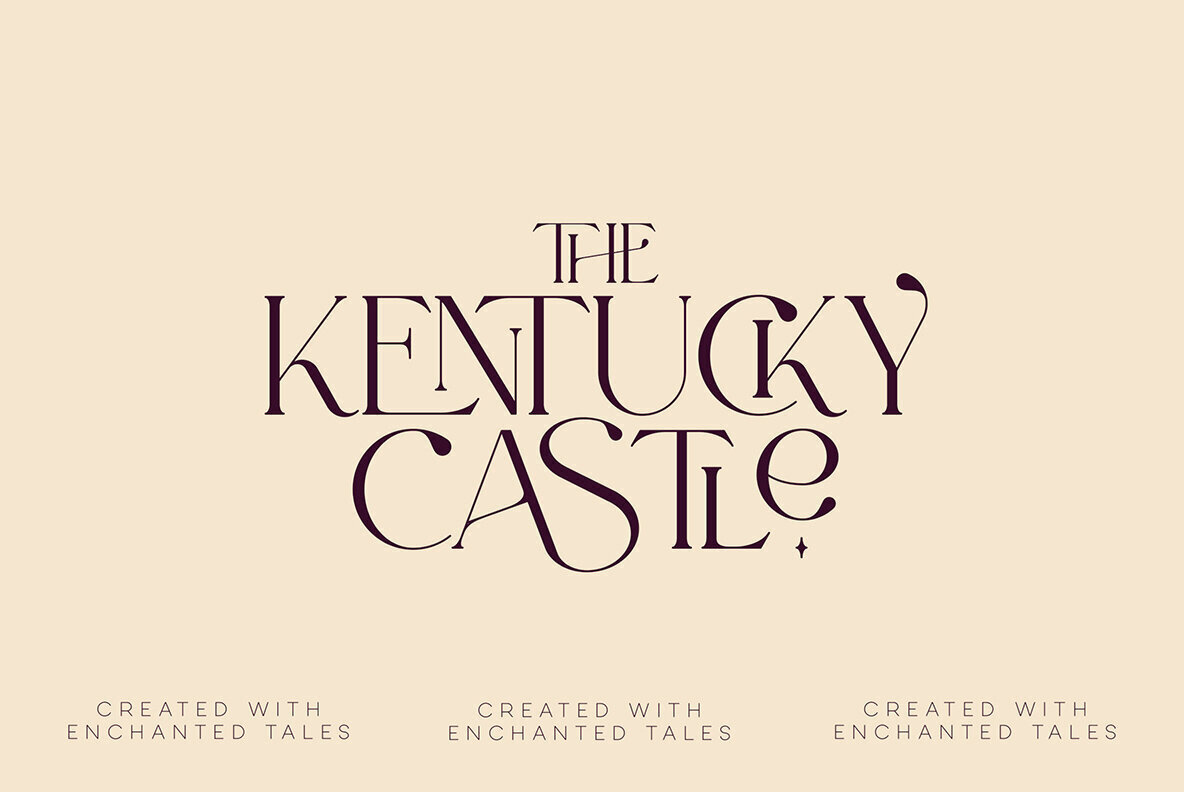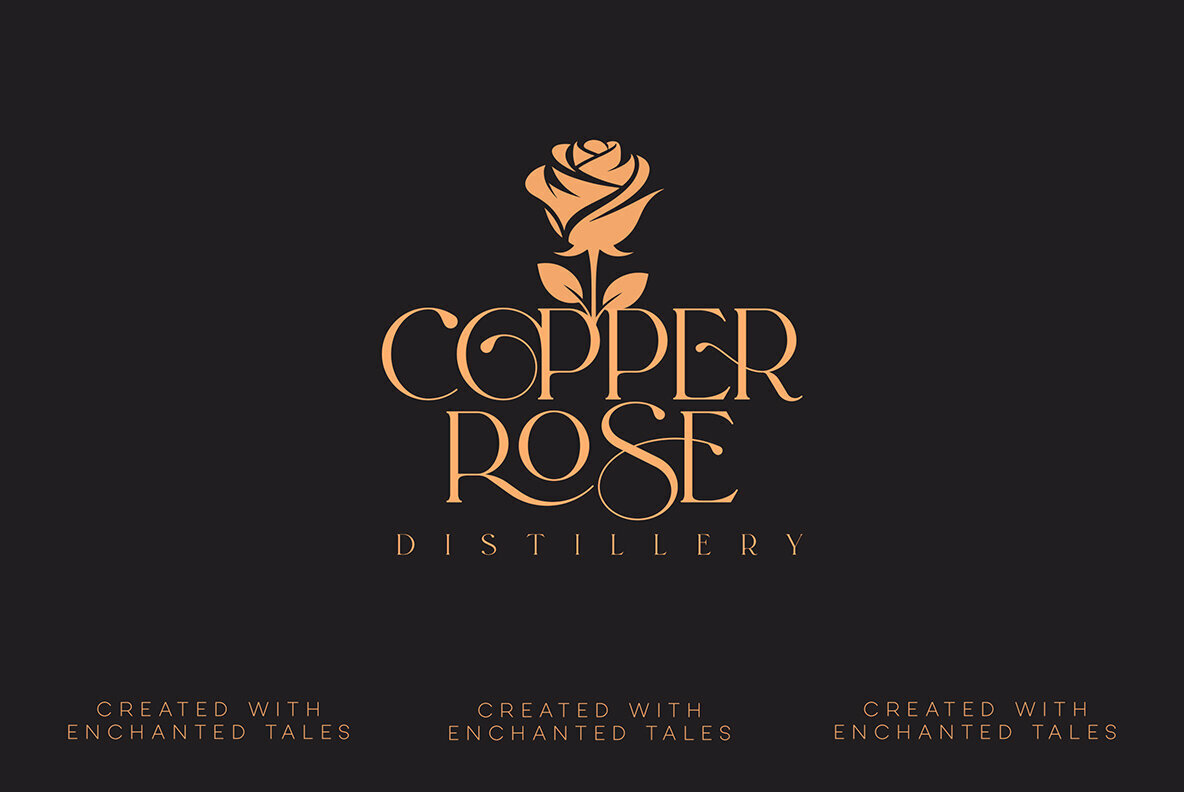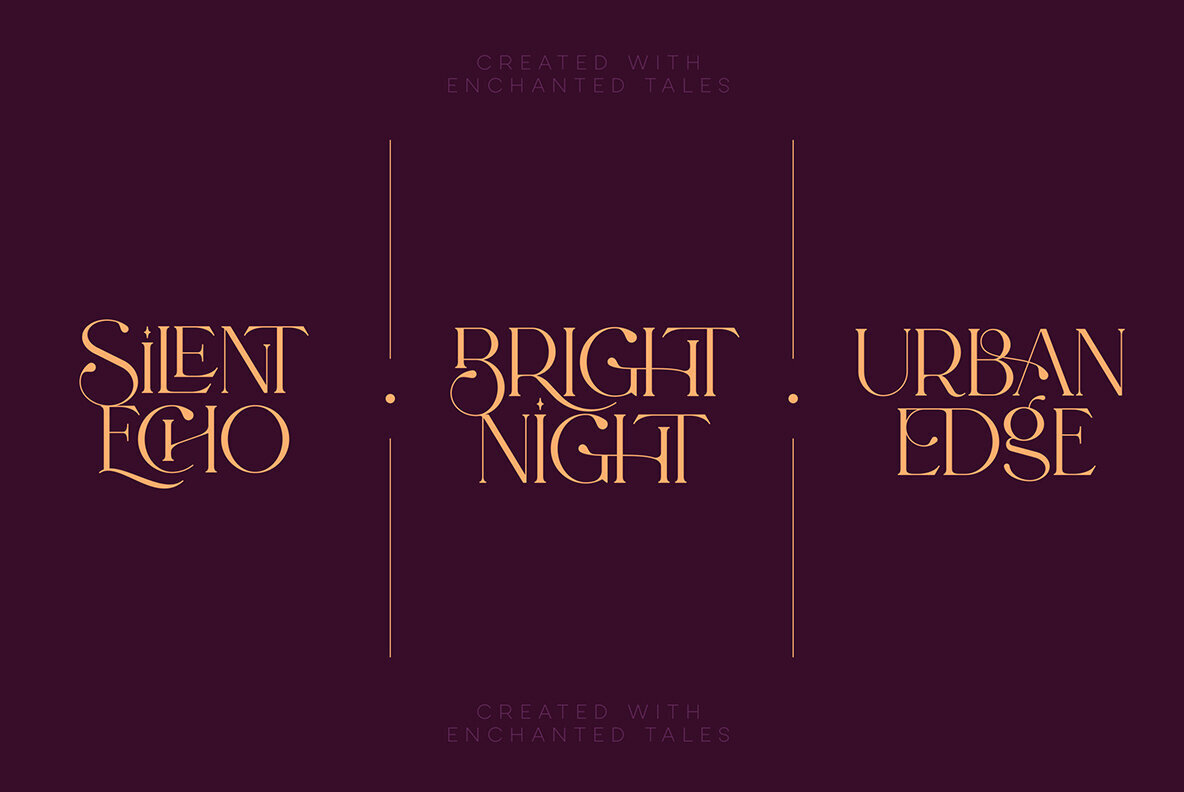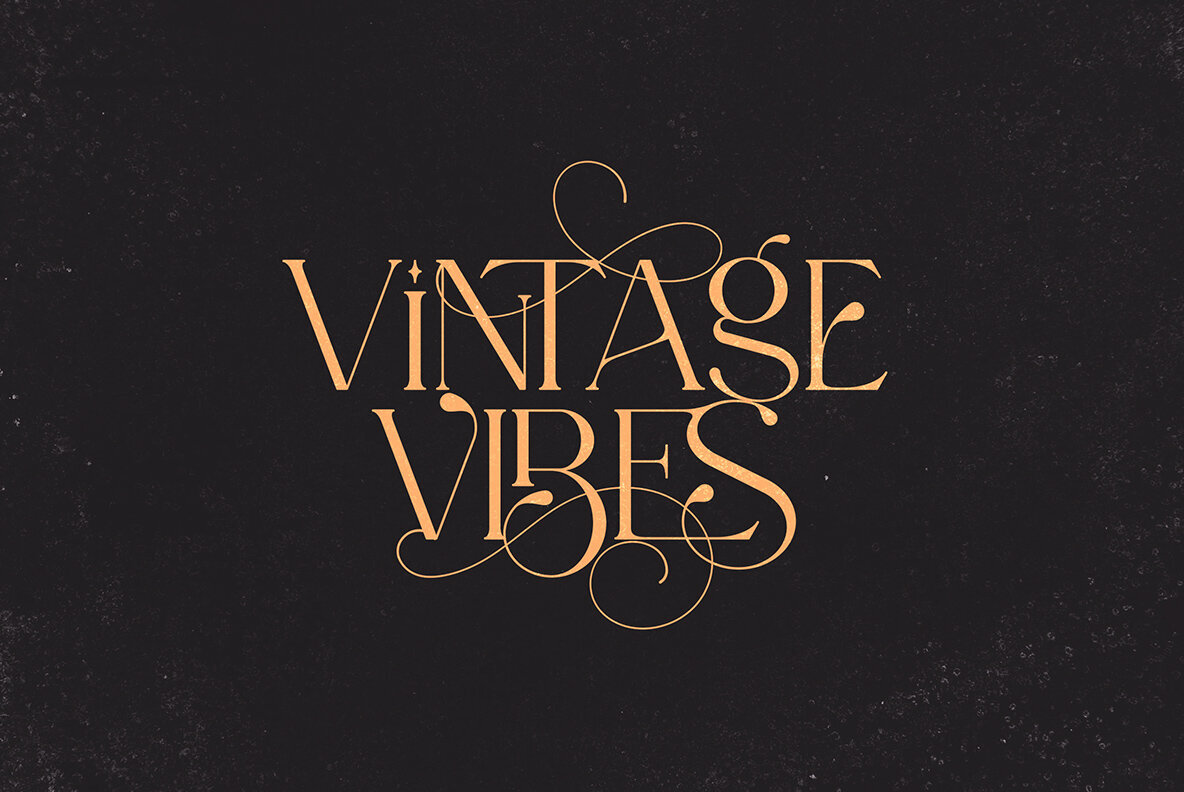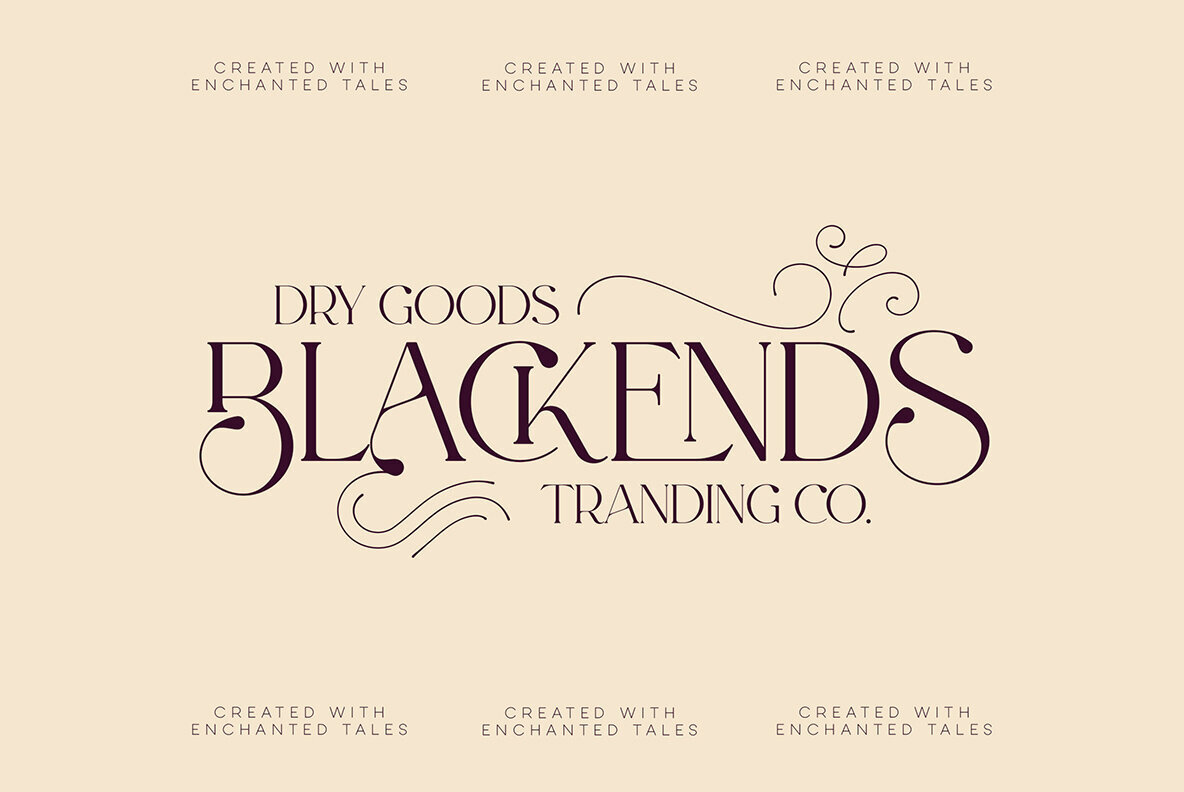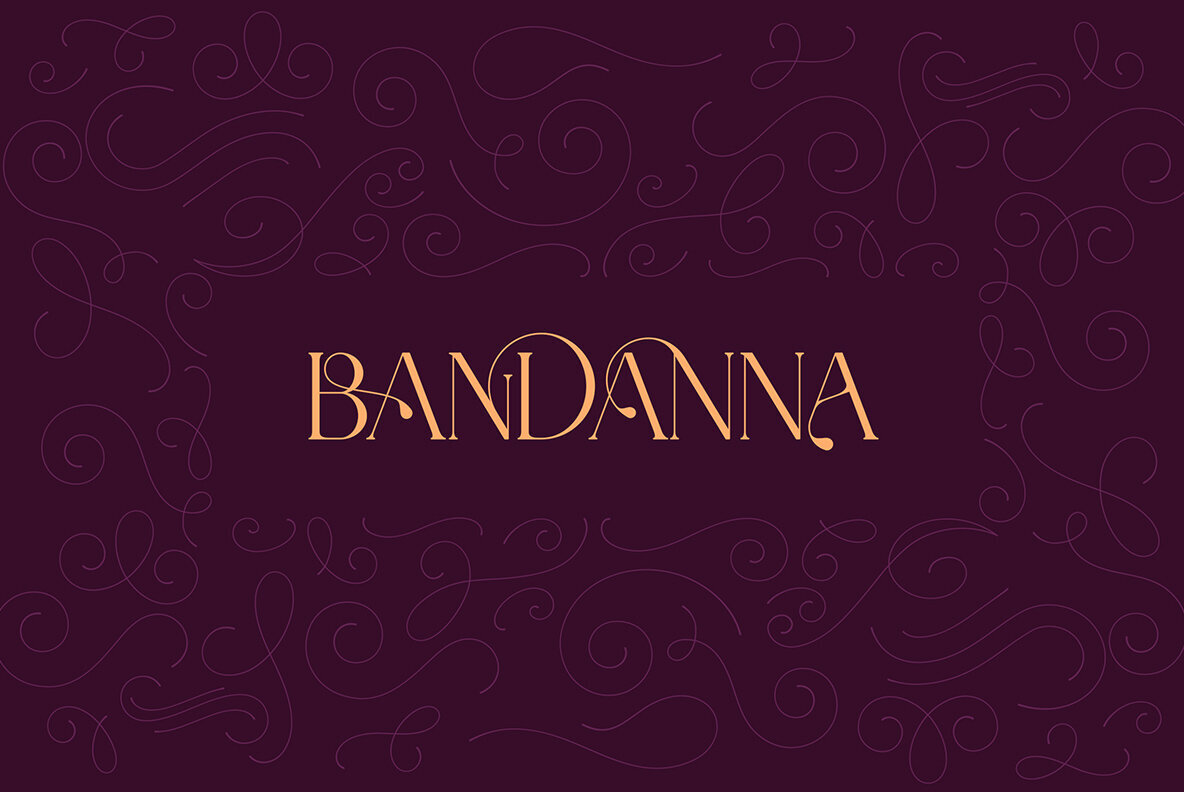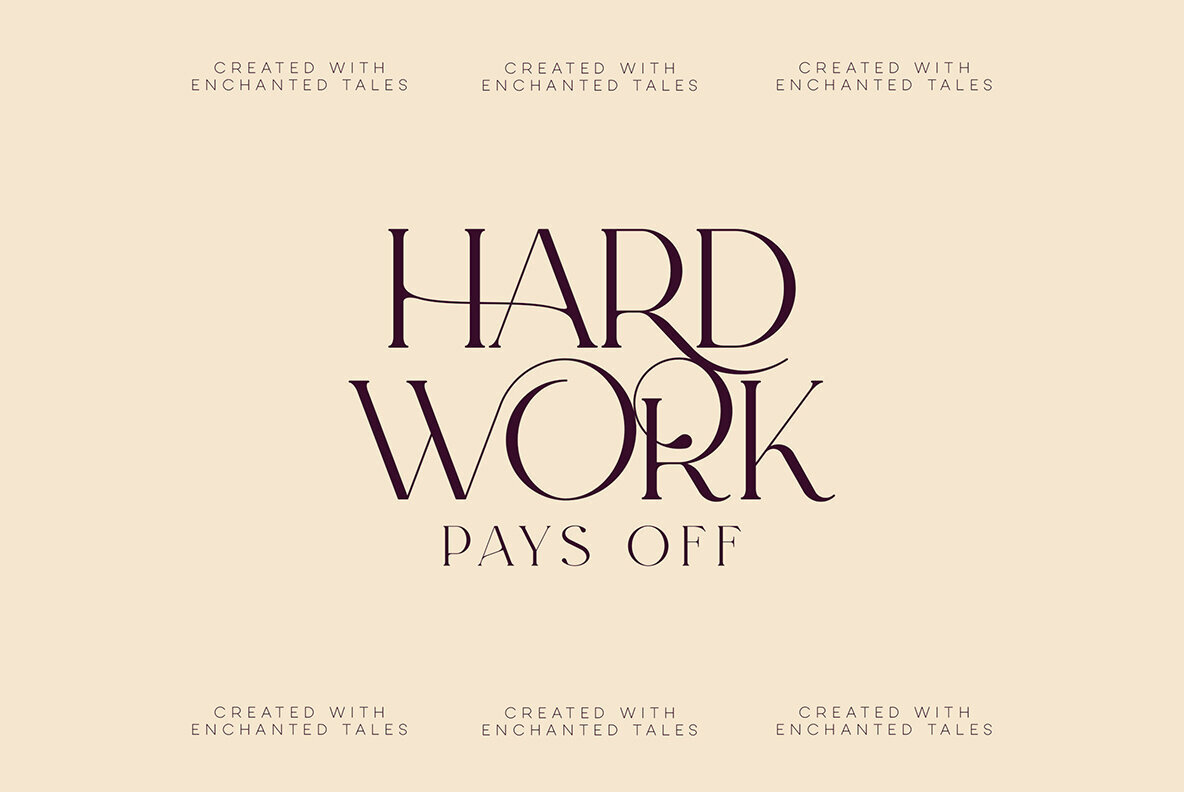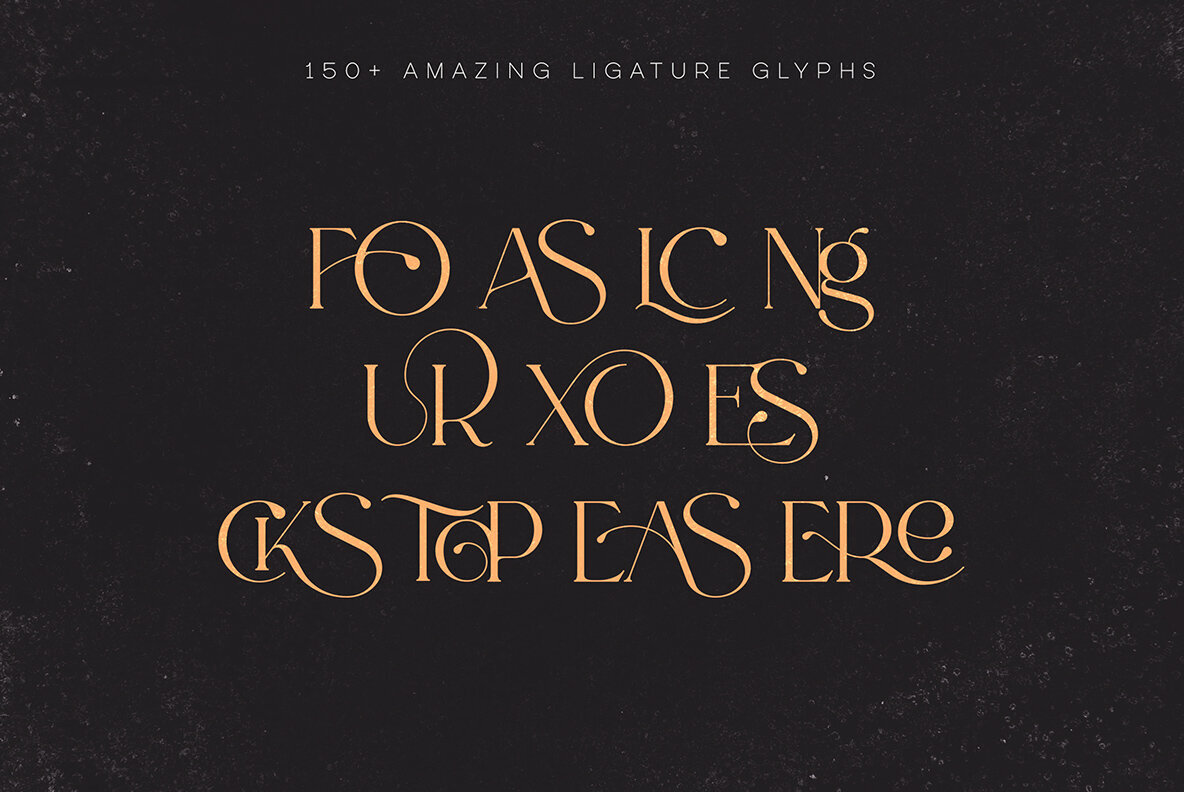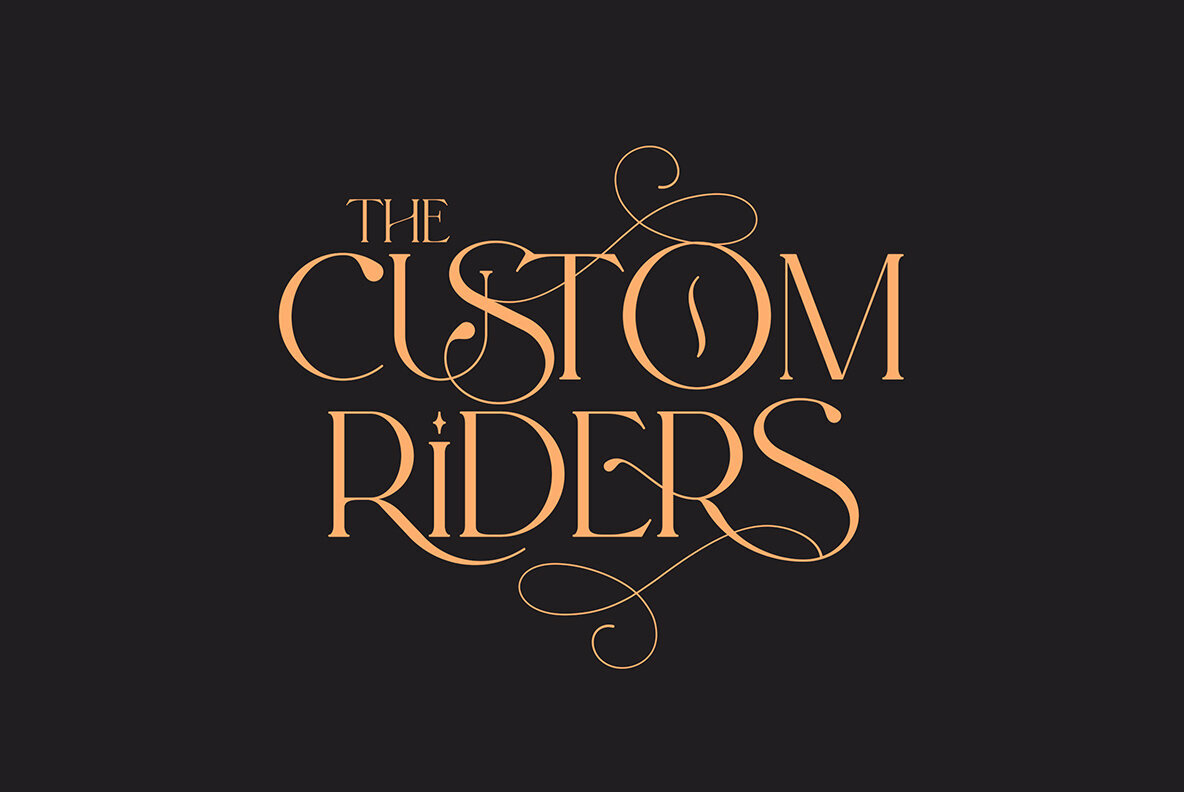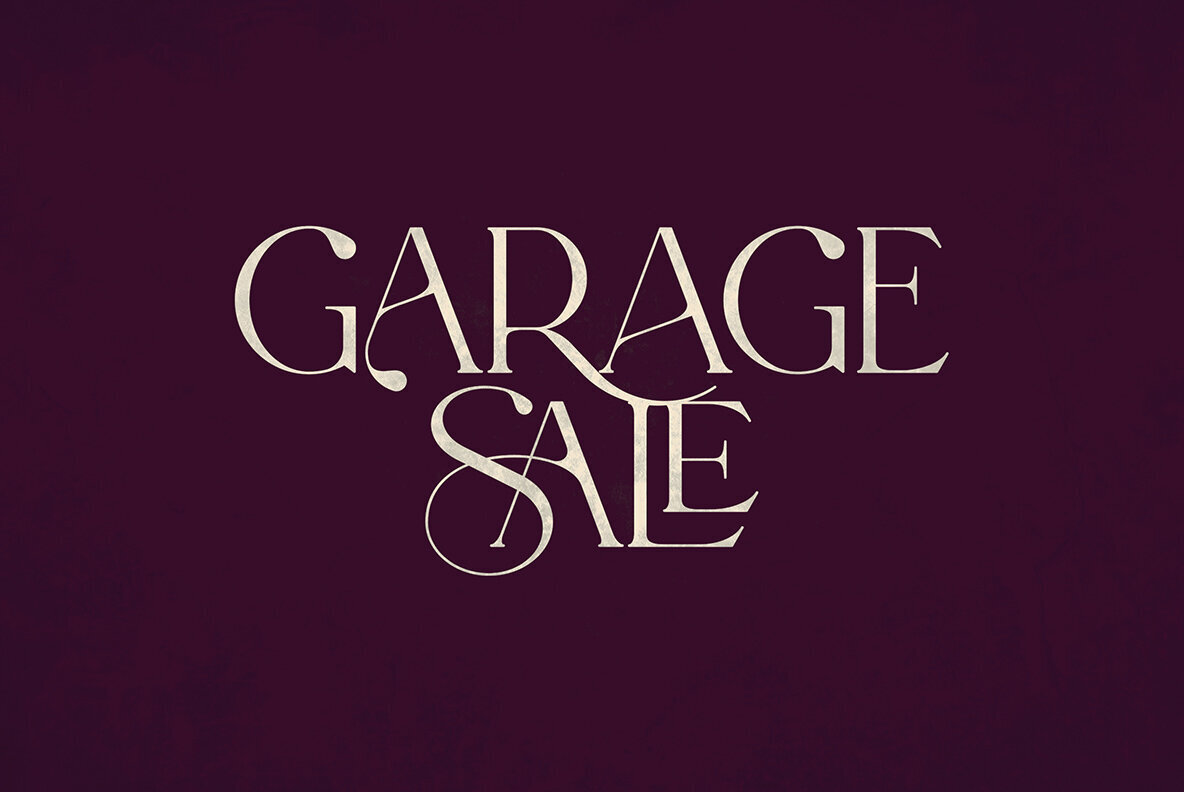
Enchanted Tales Font
Enchanted Tales Regular
Enchanted Tales Swirls
"Enchanted Tales" is a captivating serif font that offers a blend of classic elegance and modern versatility, making it an ideal choice for a wide range of creative projects. This font boasts an impressive support for 87 languages, ensuring global accessibility and inclusivity in your designs. One of the standout features of Enchanted Tales is its extensive collection of over 150 ligature glyphs, each meticulously crafted to add a unique touch of sophistication and flair to your text. The font's alternate glyphs are a treasure trove for designers, offering endless possibilities for customization and creativity. These alternates are especially perfect for letterings, logos, and vintage designs, where a touch of character and uniqueness can make a significant impact. Whether you're creating a brand identity, a book cover, or an invitation, Enchanted Tales brings a magical touch to your work, combining the timeless charm of serif fonts with the dynamic potential of modern typography. Its versatility extends beyond its aesthetic appeal, as the font is designed to be highly readable in both print and digital formats. This makes Enchanted Tales not just a beautiful choice, but also a practical one for diverse applications. Whether you're crafting elegant headlines, eye-catching logos, or engaging body text, Enchanted Tales adapts seamlessly to your vision, elevating your designs with its enchanting character and impeccable style. Language Support : Afrikaans, Albanian, Asu, Basque, Bemba, Bena, Breton, Chiga, Colognian, Cornish, Czech, Danish, Dutch, Embu, English, Estonian, Faroese, Filipino, Finnish, French, Friulian, Galician, Ganda, German, Gusi,i Hungarian, Indonesian, Irish, Italian, Jola-Fonyi, Kabuverdianu, Kalenjin, Kamba, Kikuyu, Kinyarwanda, Latvian, Lithuanian, Lower Sorbian, Luo, Luxembourgish, Luyia, Machame, Makhuwa-Meetto, Makonde, Malagasy, Maltese, Manx, Meru, Morisyen, North Ndebele, Norwegian, Bokmål, Norwegian, Nynorsk, Nyankole, Oromo, Polish, Portuguese, Quechua, Romanian, Romansh, Rombo, Rundi, Rwa, Samburu, Sango, Sangu, Scottish, Gaelic, Sena, Shambala, Shona, Slovak, Soga, Somali, Spanish, Swahili, Swedish, Swiss, German, Taita, Teso, Turkish, Upper, Sorbian, Uzbek (Latin), Volapük, Vunjo, Walser, Welsh, Western Frisian, Zulu Ligatures :IS,FO,FA,TY,NN,EY,SS,LL,US,UT,AS,AN,AM,LO,RO,CI,ET,TE,CK,OH,OO,OE,OC,KO,KE,KC,CH,SE,EA,UR,RS, KS,TH,TU,TT,TK,TL,HE,RG,RE,RC,HT,EP,ER,LC,LE,ND,ED,OF,HA,EN,ST,NT,ON,ME,MO,NG,UG,OU,GH,OR,OP, EE,YO,VE,IT,TU,WE,WO,VO,SA,MA,OL,VA,AV,YP,WA,AW,OX,XO,OT,TO,YR,UP,UP,BE,ES,BA,EN,NT,HR,OD, FAS,FAST,CKS,TEL,TOR,TOP,TWE,NTY,TYP,OUT,UST,URS,WAS,THE,WES,EST,EEN,ERS,EAS,LES,ENT,FOR, OUG,ERE,TER,YOU,VER,THA,AND,ITH,HTI,MENT,WER,WERE,ROM,ERO,ERG,ERC,NTH,HRO,HRG,HRC, HRE,TWO,GHT,OUR,OUP,STO,MEN,VEN,MER